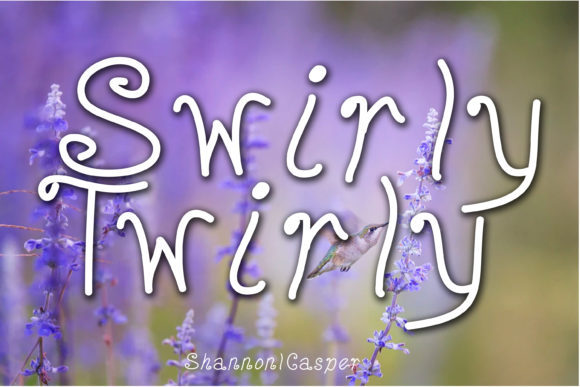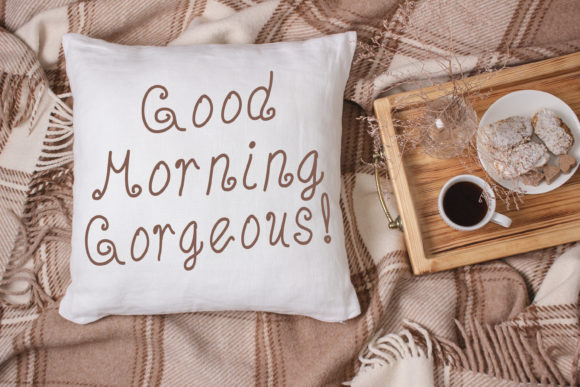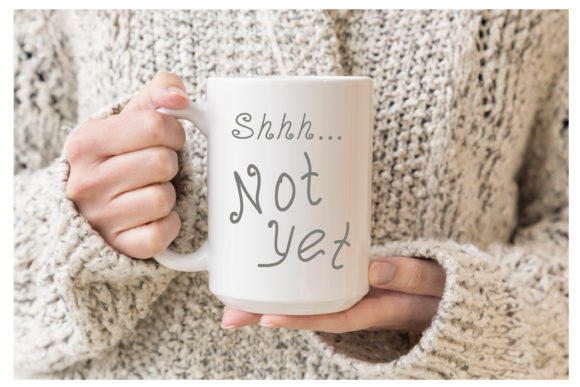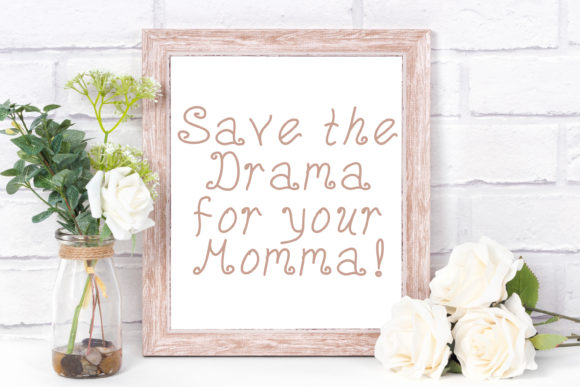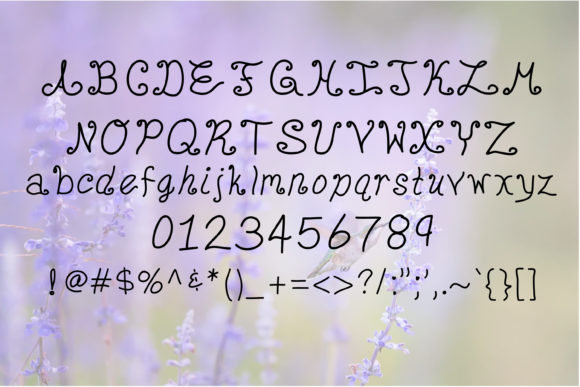
Swirly Twirly Font
About Swirly Twirly Font
Swirly Twirly is a cute an stylish handwritten font.
This font can be used in a wide variety of applications from logos, t-shirt designs to quirky posters – the only limit is your imagination!